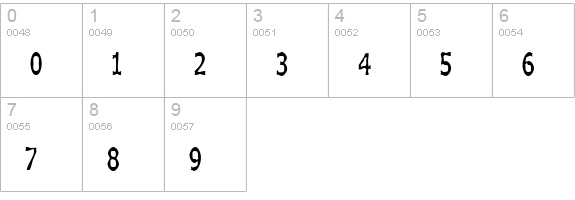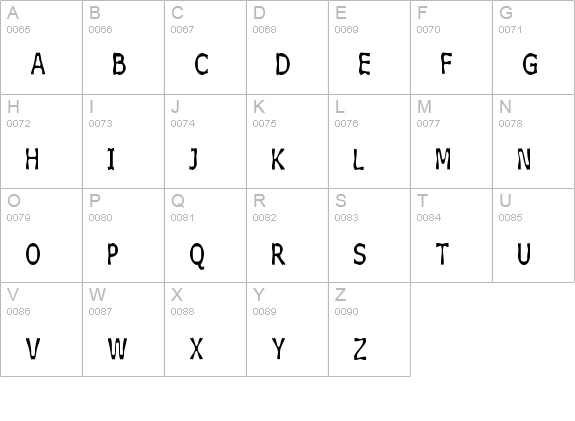
Boneribbon Tall Bolder Font Details
Introducing Boneribbon Tall Bolder font - a striking and bold typeface that demands attention with its unique design and tall letterforms. This versatile font is perfect for making a statement in headlines, logos, posters, and more. Its clean lines and strong presence make it a great choice for projects that require a modern and impactful look. The best part? Boneribbon Tall Bolder font is available for free download at FontsMarket.com! Take advantage of this opportunity to enhance your designs with this eye-catching font without any cost. Whether you're a graphic designer, artist, or DIY enthusiast, this font is sure to add a touch of creativity and flair to your work. Download Boneribbon Tall Bolder font today and start creating stunning visuals that stand out from the crowd.